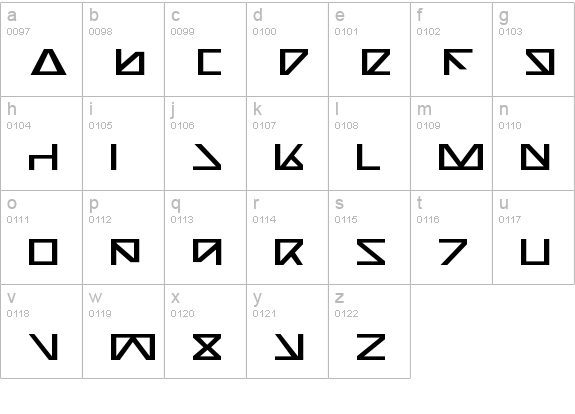
Nick Turbo Expanded Font Details
Nick Turbo Expanded is a distinctive, extended-width variant in the Nick typeface family \xE2\x80\x94 well suited to design and typography projects.
Nick Turbo Expanded font is a bold and eye-catching typeface that exudes confidence and modernity. With its sleek lines and expanded letterforms, this font is perfect for making a statement in your designs. Whether you're working on a poster, logo, or website, Nick Turbo Expanded will add a touch of flair and energy to your project. What's even better is that Nick Turbo Expanded font is completely free to download at FontsMarket.com. This means you can add this dynamic font to your collection without any cost, making it a fantastic option for both personal and commercial projects. Don't miss out on the opportunity to enhance your designs with the striking Nick Turbo Expanded font – download it today and let your creativity soar!